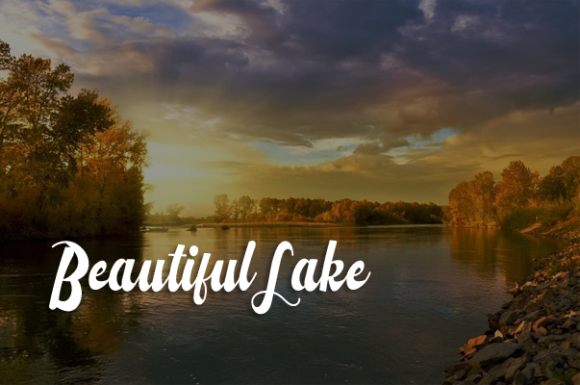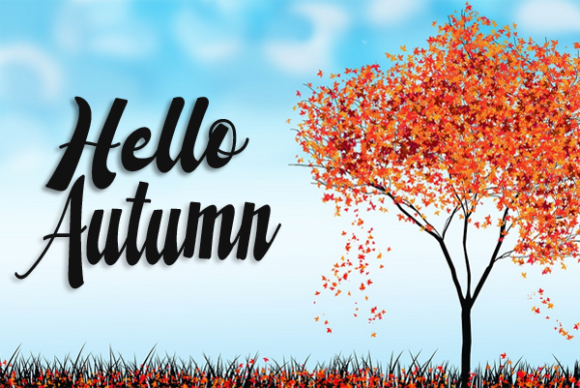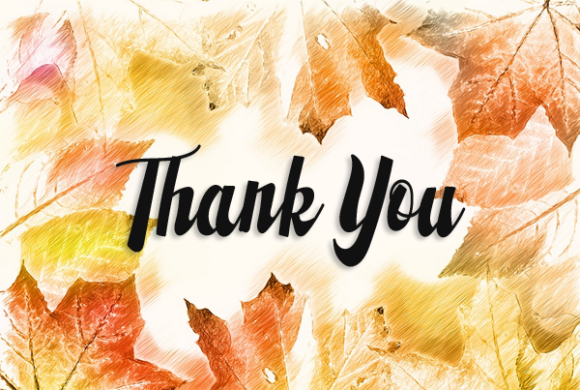
A Touch of Whimsy: Unveiling the Magic of Autumn Leaves Font
As a designer, there’s no denying the joy of stumbling upon that perfect font that elevates your project from ordinary to extraordinary. For me, it was a crisp autumn morning, surrounded by the vibrant hues of fallen leaves, that sparked the idea to dive into the world of beautiful handwritten fonts. And that’s exactly where the Autumn Leaves Font comes in – a ravishingly beautiful script font that’s sure to capture the essence of the season.
With its versatility and romantic feel, the Autumn Leaves Font is a designer’s dream come true. Whether you’re crafting a heartfelt greeting card or designing a captivating headline, this font is guaranteed to add a touch of whimsy to your next project. Its vast applications make it an invaluable asset for designers, and its natural, effortless charm is sure to leave a lasting impression on your audience.
Autumn Leaves Font Key Features
- Font Family: Autumn Leaves, a unique and elegant script font designed to evoke the feeling of autumn leaves.
- Unique Characteristics: Features intricate, hand-drawn designs with subtle texture and organic feel, perfect for adding a touch of whimsy and elegance to designs.
Autumn Leaves Font Review
I recently had the chance to work with the Autumn Leaves Font and here’s my honest take on it.
- The font’s unique, hand-drawn feel is perfect for projects that need a touch of organic charm.
- The subtle texture and imperfections give the font a warm, natural look that’s perfect for autumn-themed designs.
Limitsations ⚠️
- The font may be too whimsical for more formal or professional designs.
- The texture and imperfections may be distracting in designs where a clean, minimalist look is desired.
- The font may not be as versatile for use in digital interfaces or UI elements.
Overall, I think the Autumn Leaves Font is a great choice for designers looking to add a unique touch to their projects. While it may not be suitable for every design, its charm and character make it a great fit for autumn-themed, creative, or whimsical projects.
The Autumn Leaves font is commonly used for:
- Seasonal designs, such as fall-themed invitations or social media posts.
- Custom designs, such as wedding invitations or business cards.
- Presentations or documents with a seasonal theme.